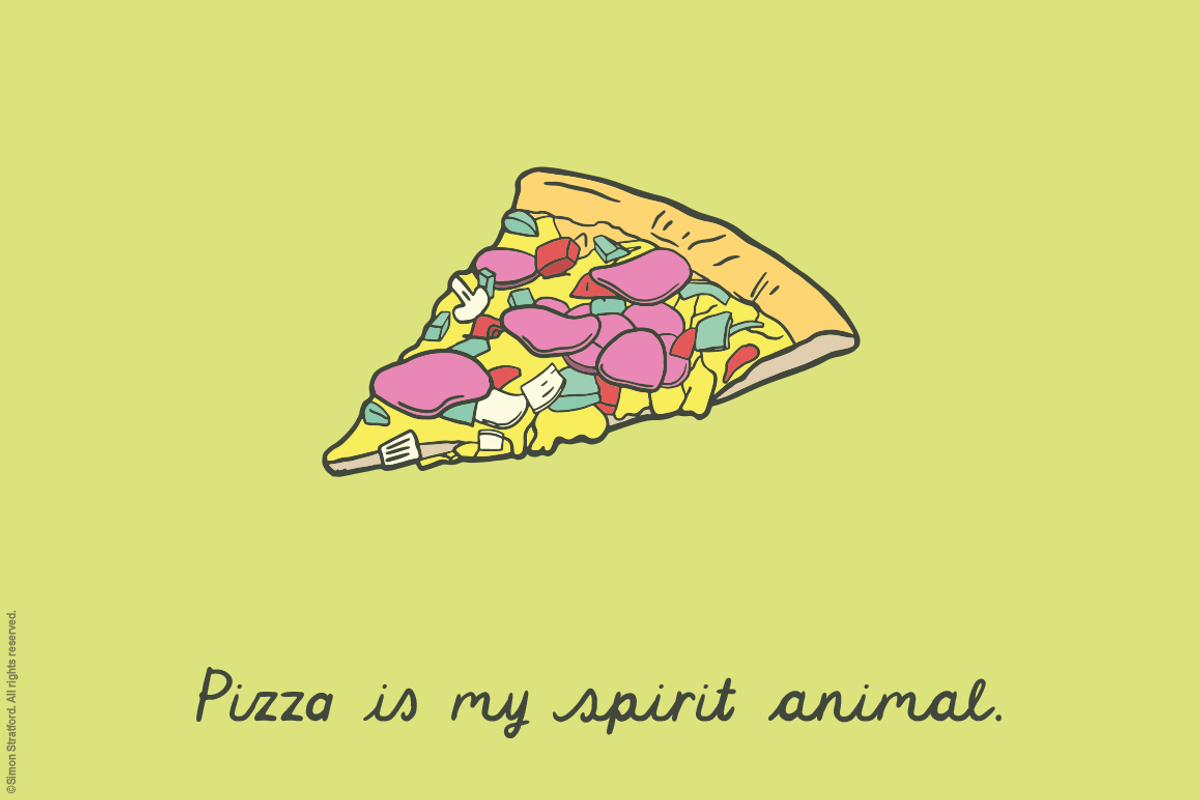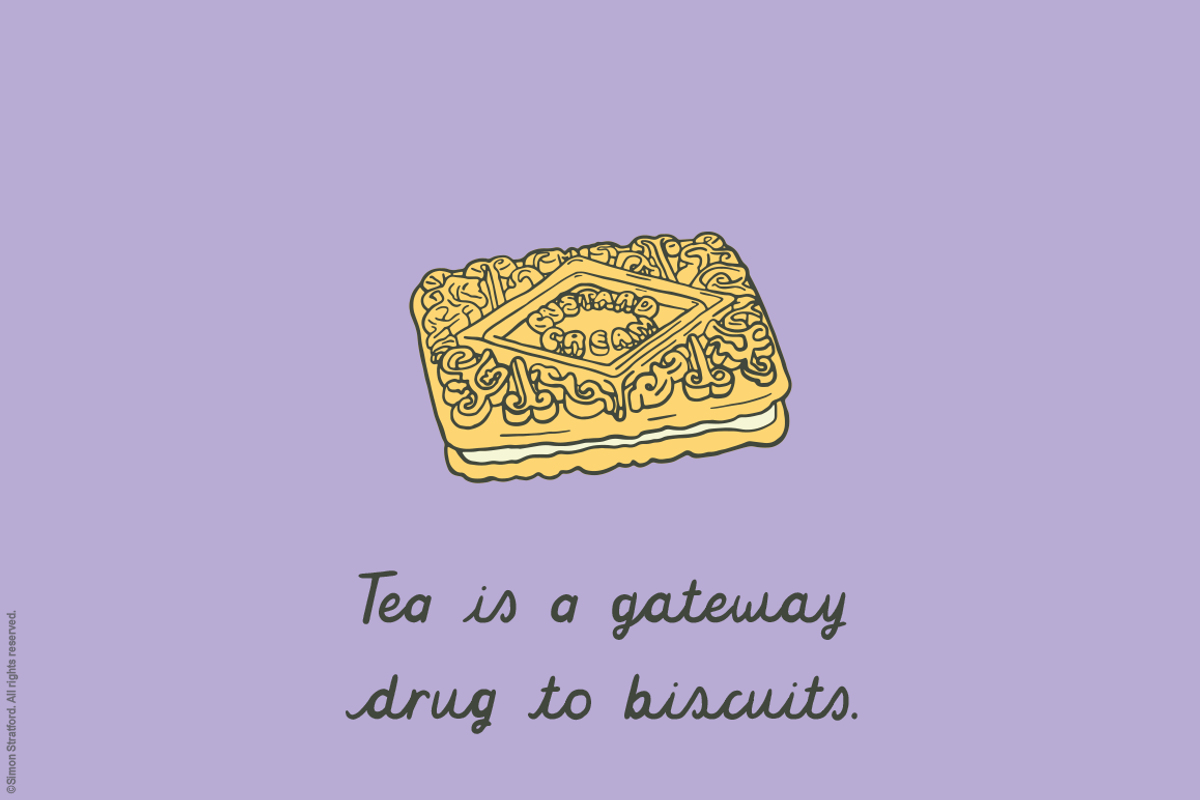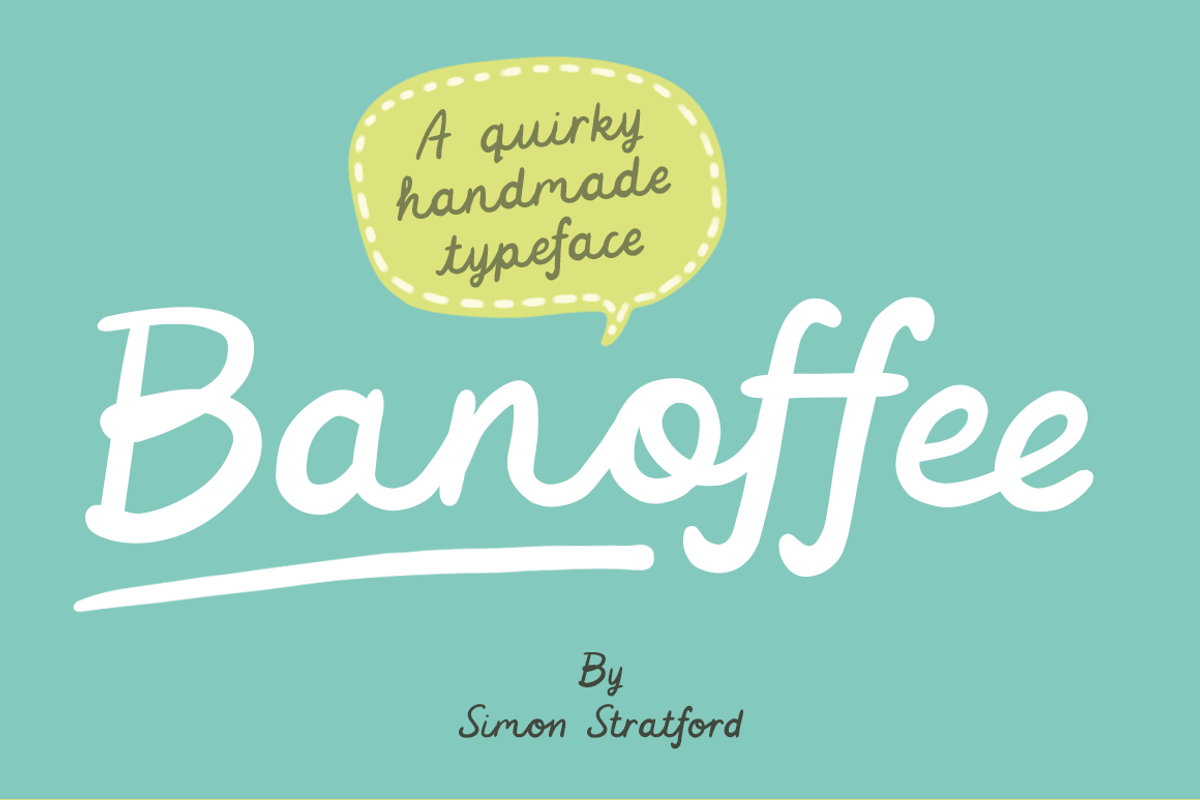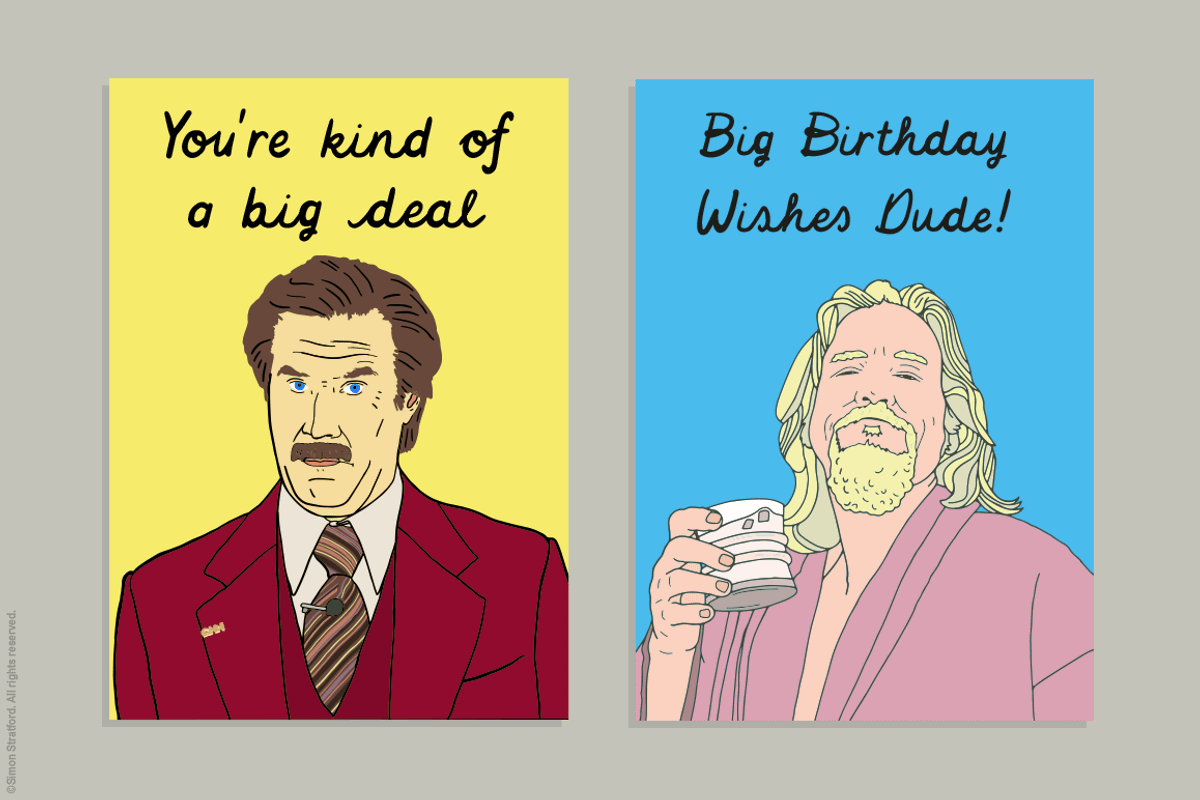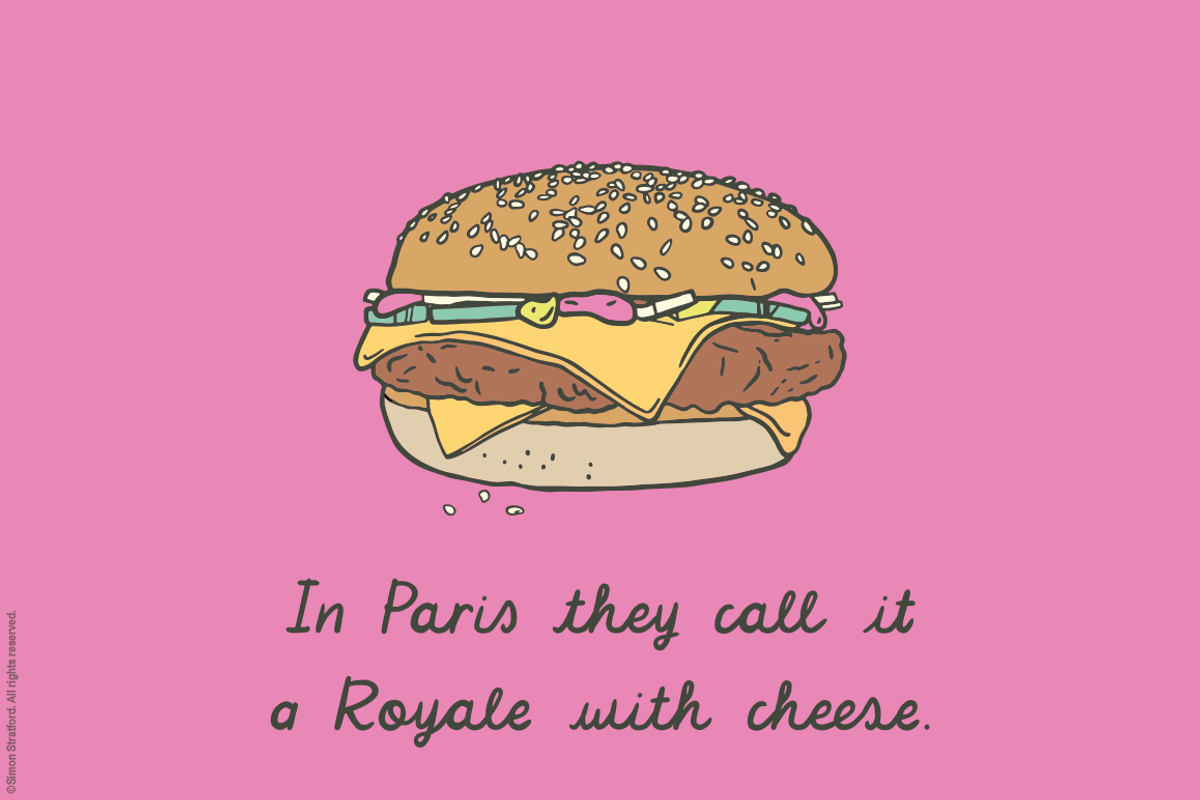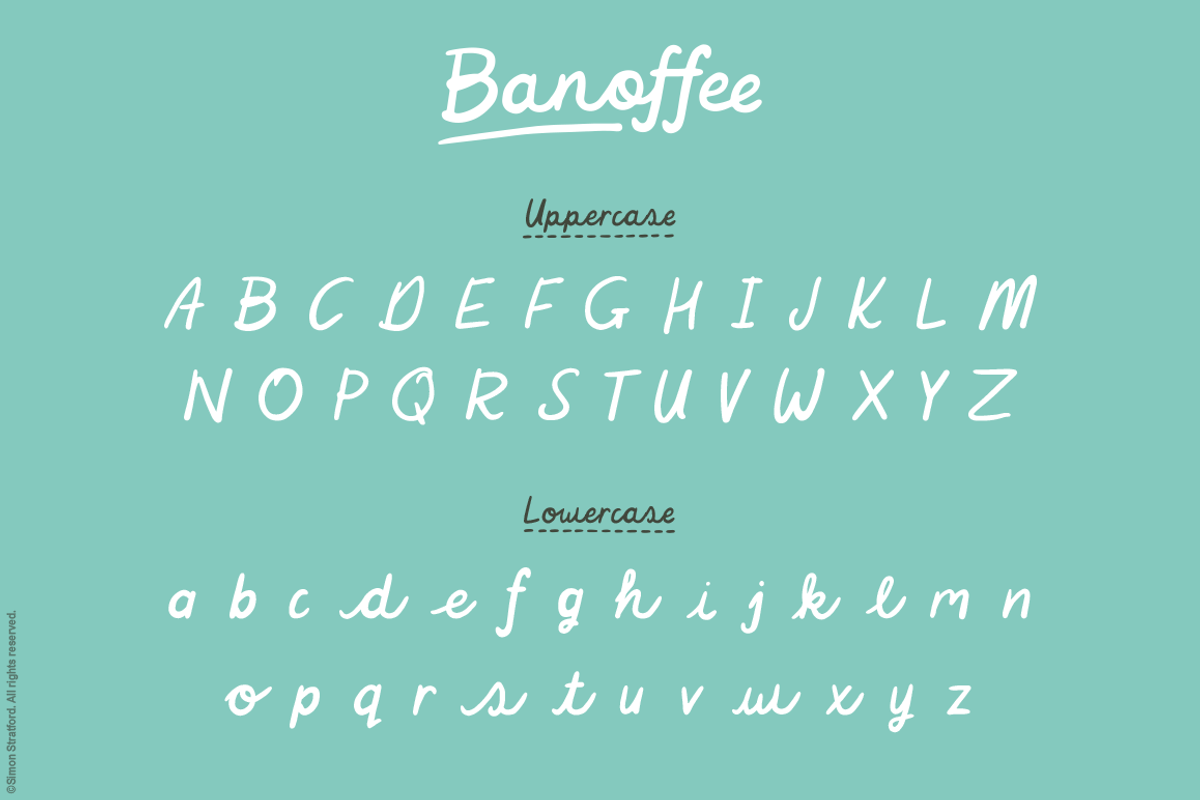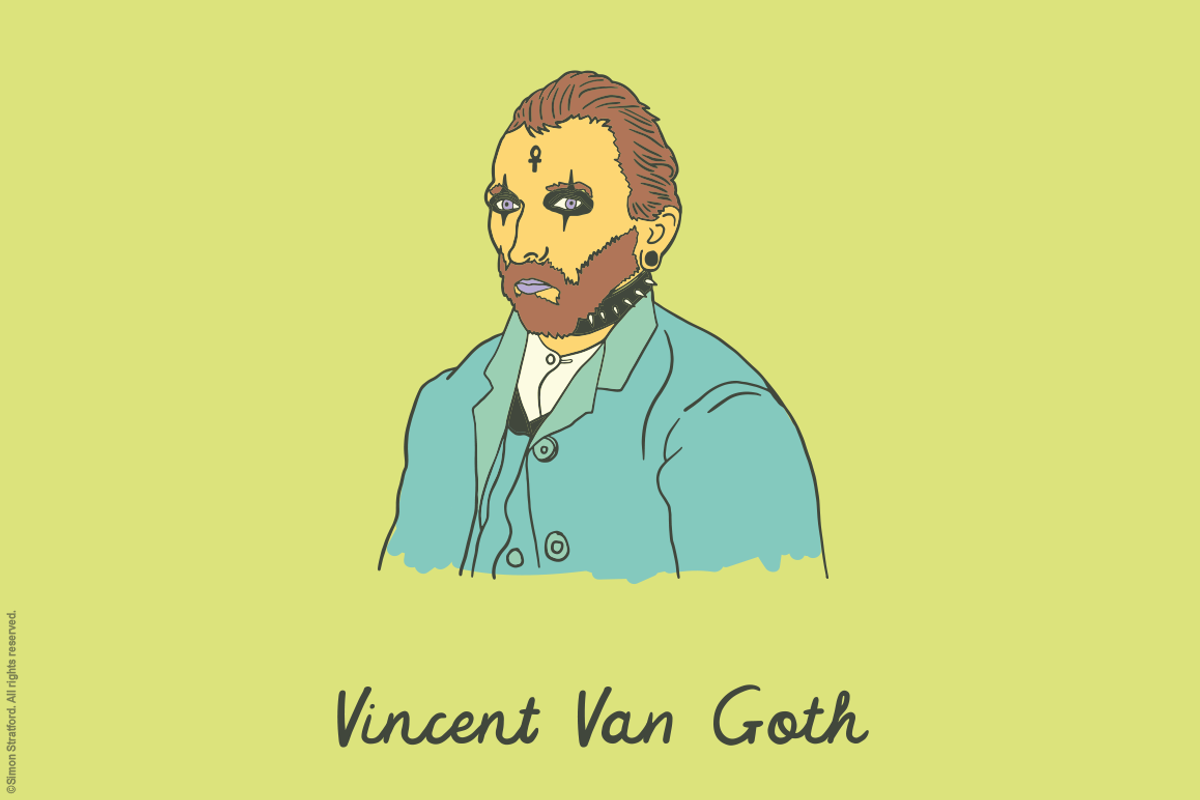
Script font Banoffee handmade
Script font Banoffee handmade by Itsmesimon is a font selected for branding, posters, packaging, typography.
- The character set includes western, central and south-eastern European glyphs.
- The font also includes a small collection of ornaments.
- The Banoffee font includes; One weight One decorative ornament set Upper and lowercase glyphs Punctuation and Symbols Numbers Initial and te
- It uses OpenType features and has ligatures, terminals, and realistic looking connections.
Why Script font Banoffee handmade is worth a look
Script font Banoffee handmade by Itsmesimon fits naturally into Branding, posters, packaging, typography.